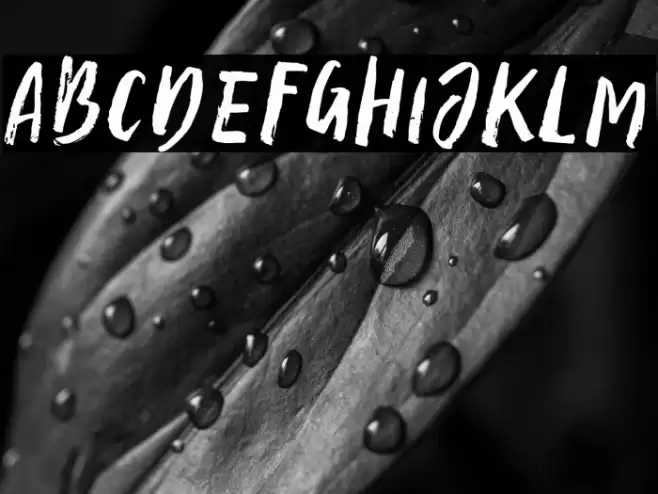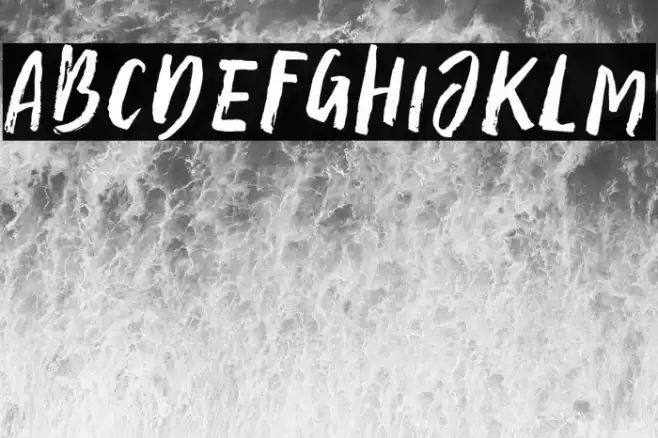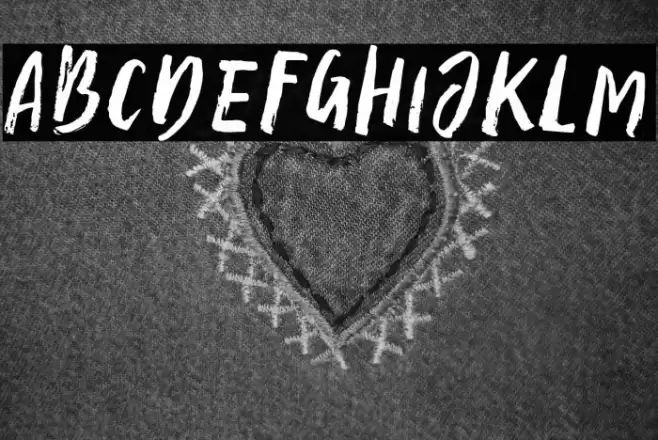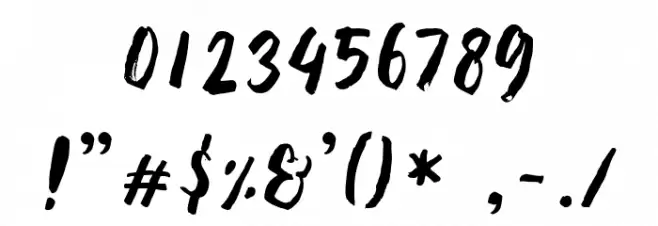
Ample Script Regular Font
Ample Script Regular Description
This font exudes a lively and dynamic energy with its brush script style. The strokes are bold and expressive, giving each character a hand-painted appearance. The uppercase letters are tall and commanding, while the lowercase letters maintain a fluid and connected form, enhancing the script's natural flow. Numbers and special characters are crafted with the same artistic flair, ensuring consistency across all elements. The font's rough edges and varying stroke widths contribute to its organic and authentic feel, making it ideal for projects that require a personal touch.
A bold, brush script font with an expressive and hand-painted style from Uncategorized fonts.
- Font: Ample Script Regular
- Proposed Projects: Ideal for branding, packaging, invitations, and artistic posters.
- Use Case: Logos, Headlines, Artistic projects